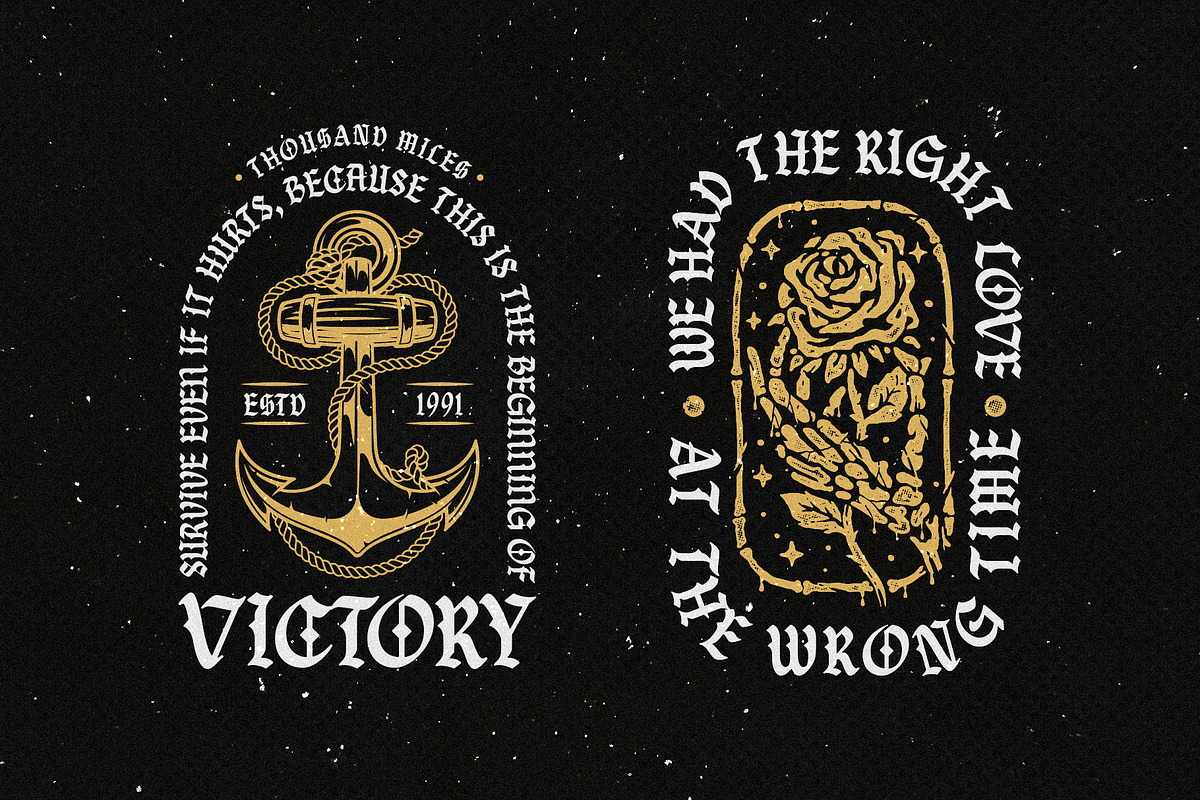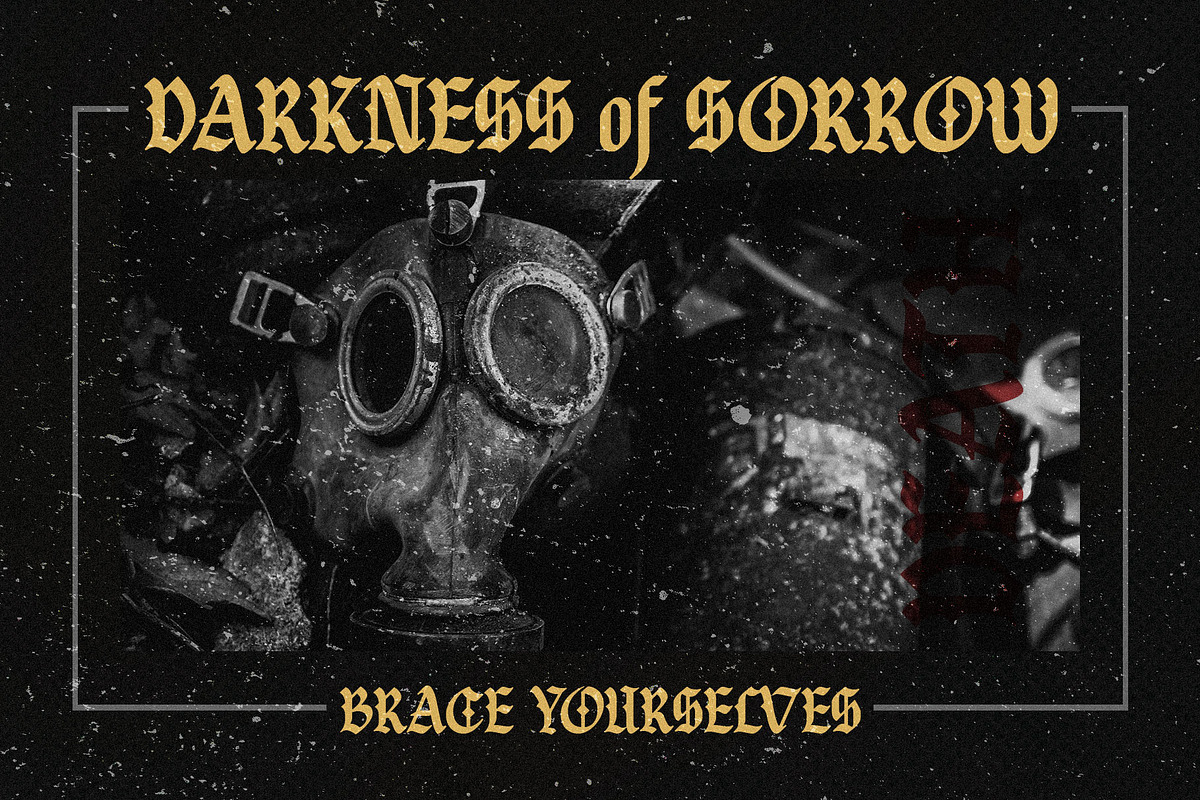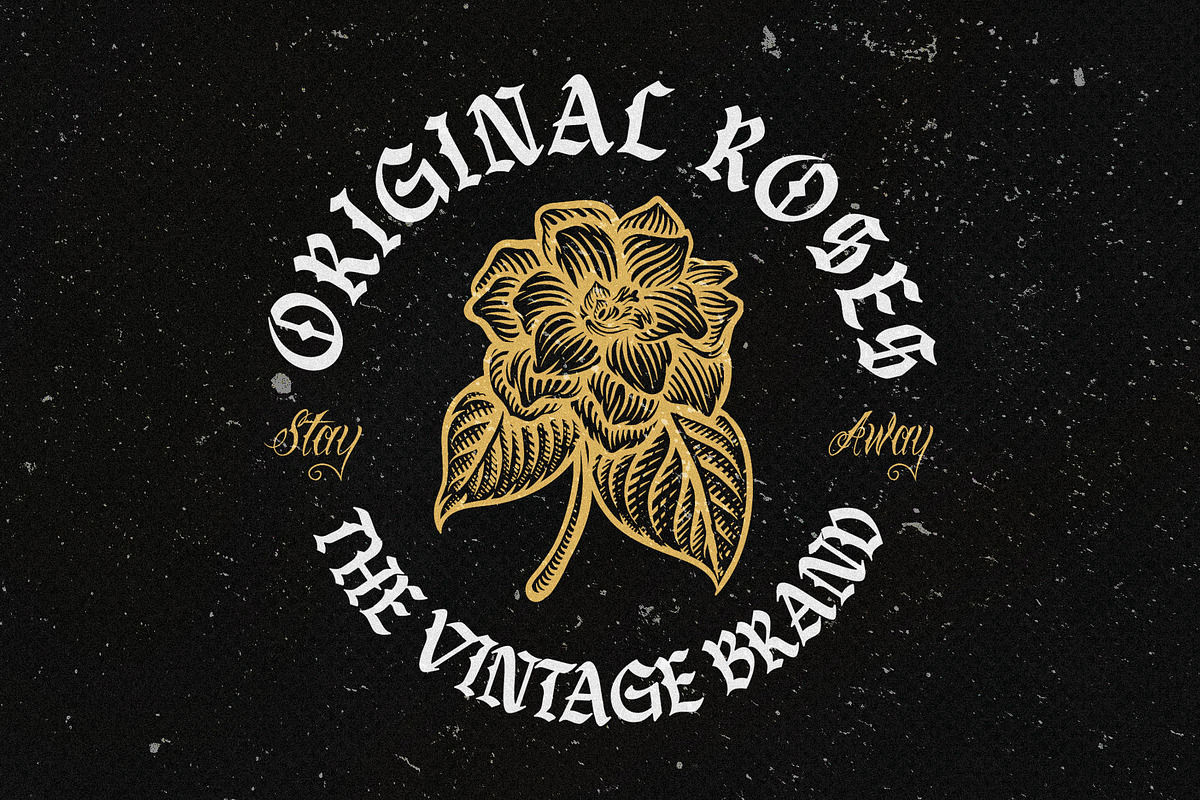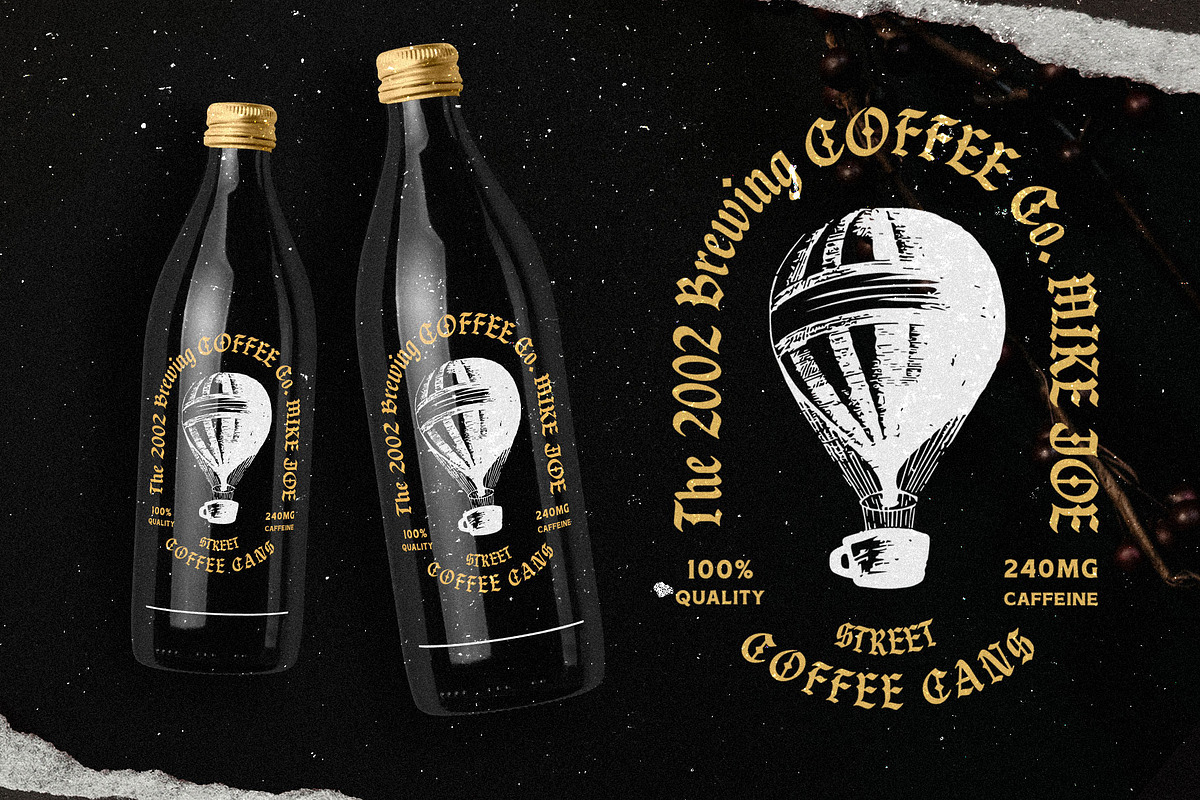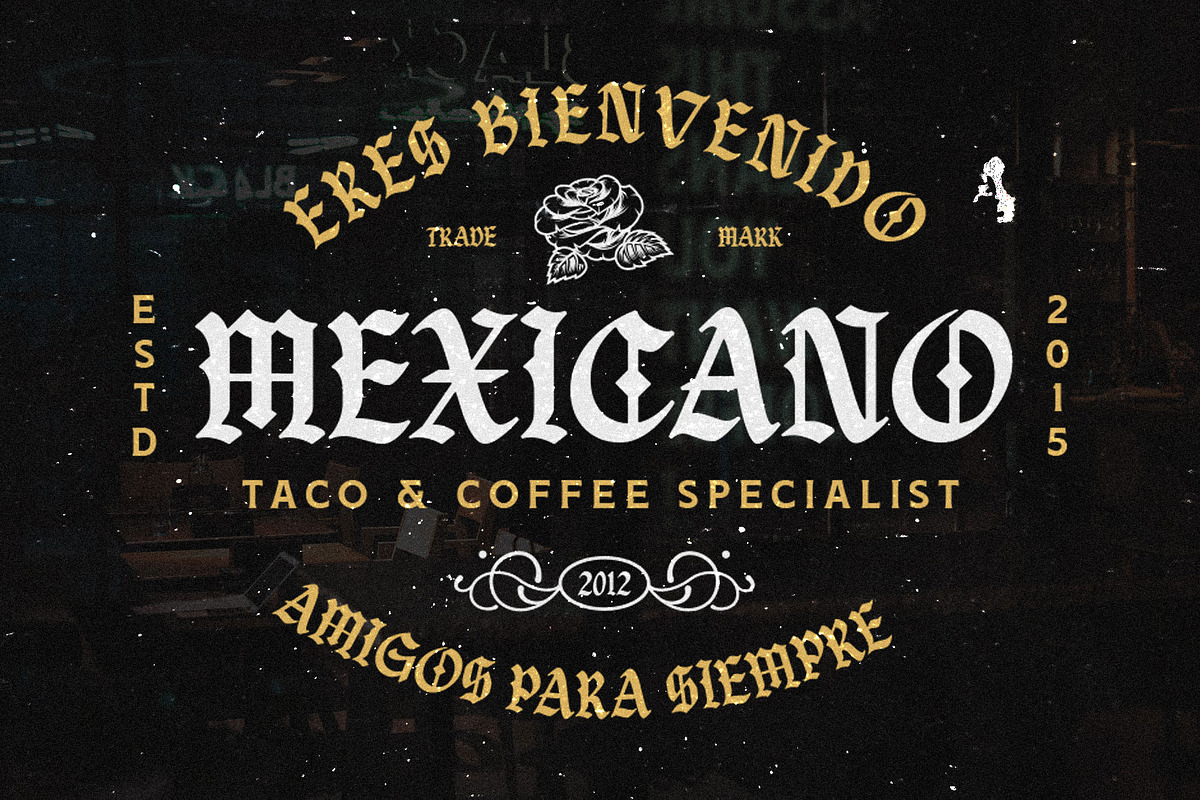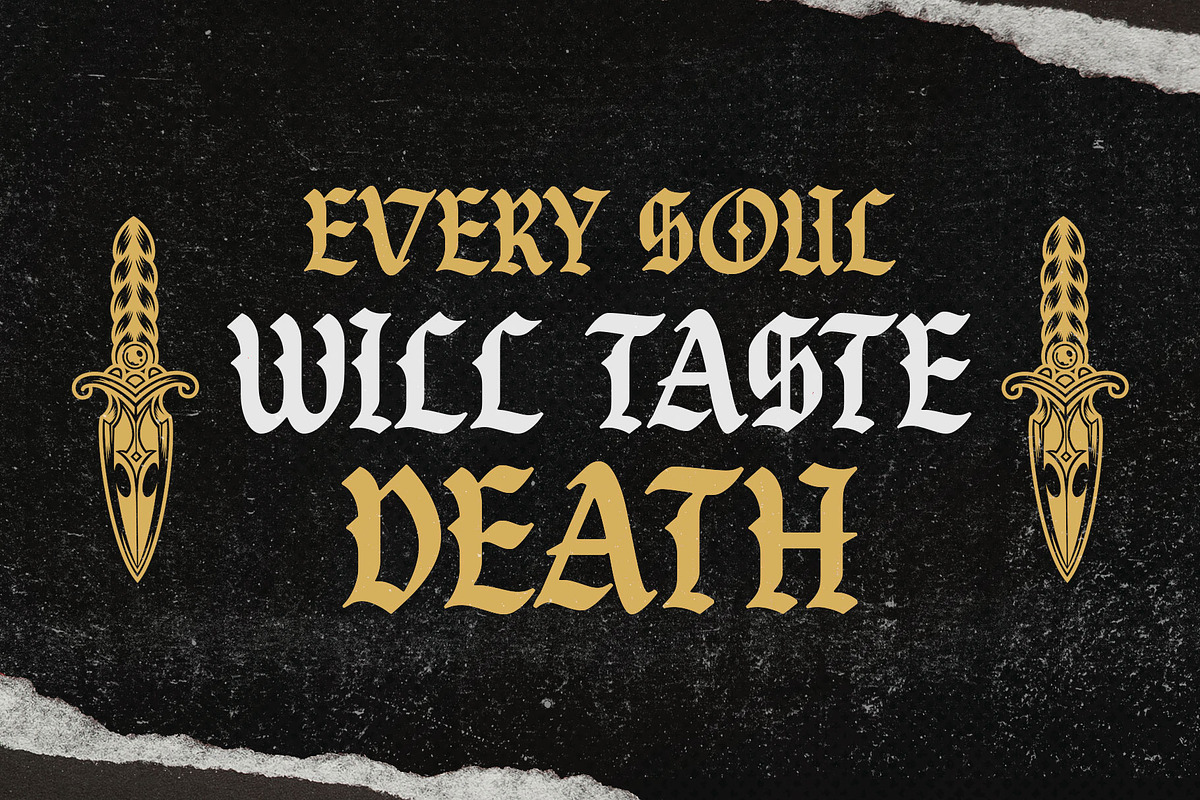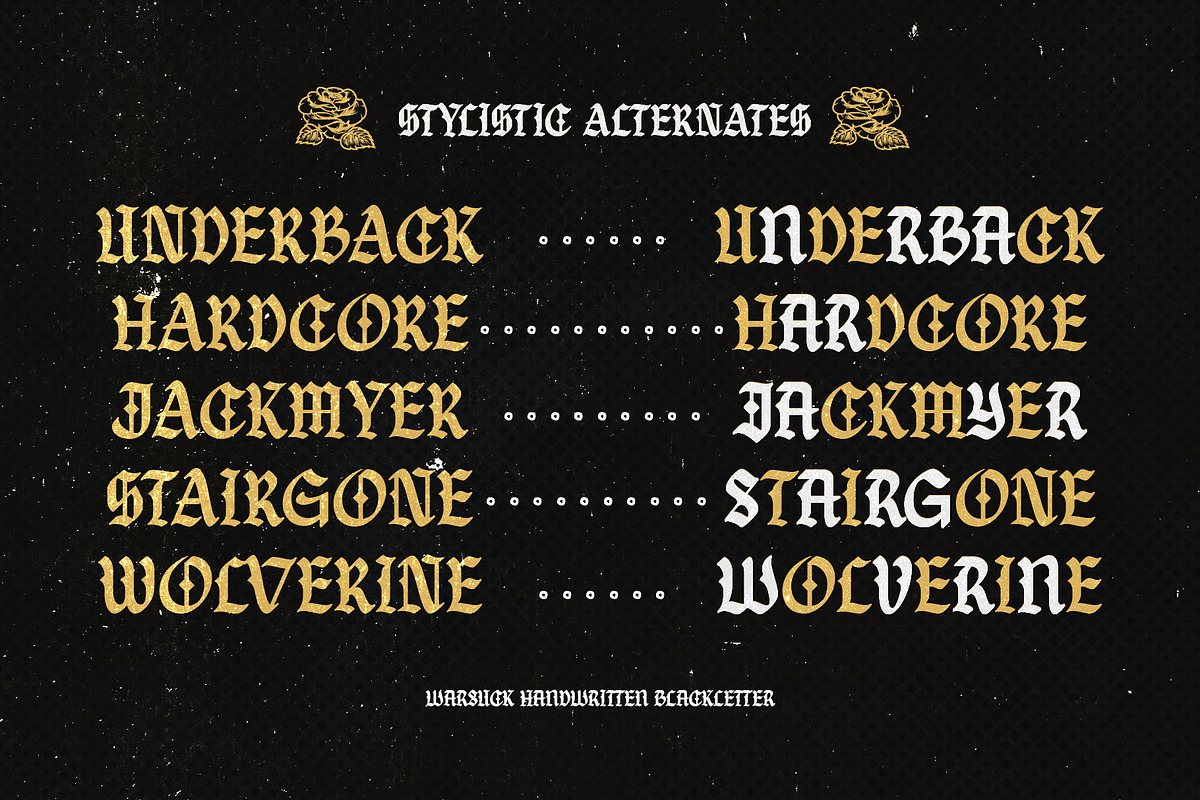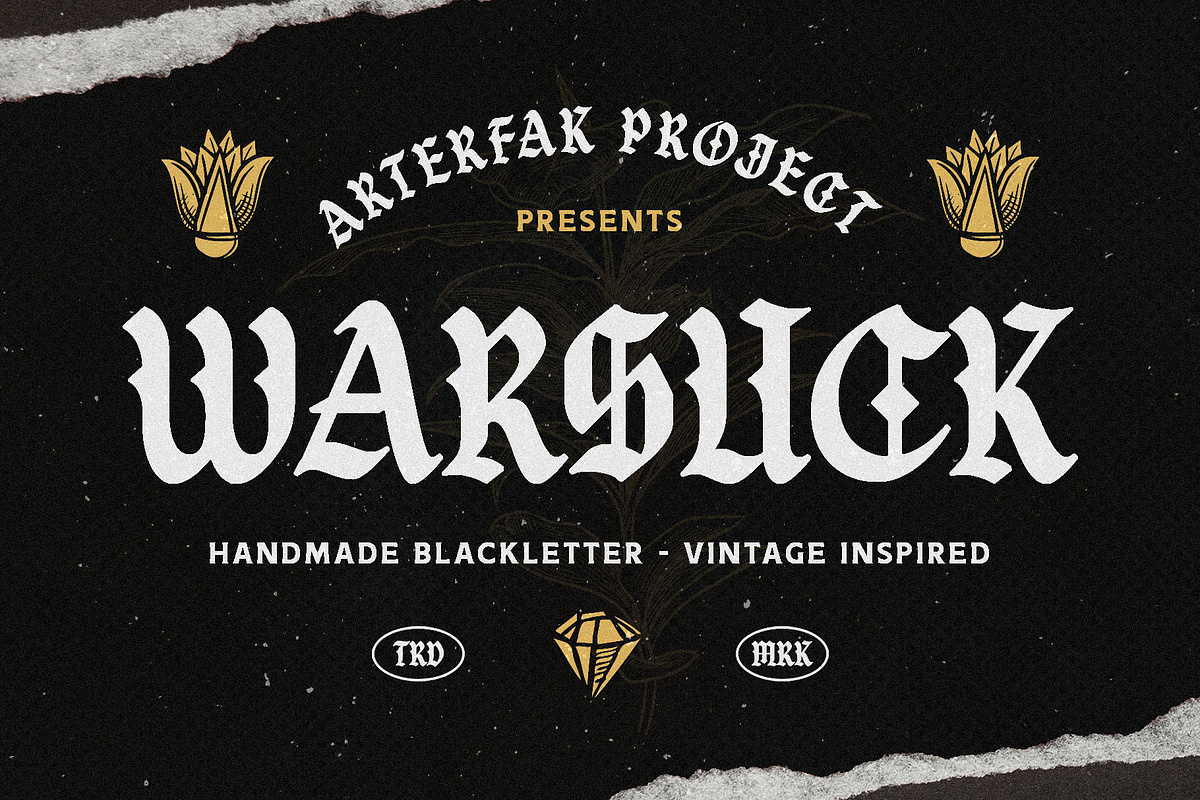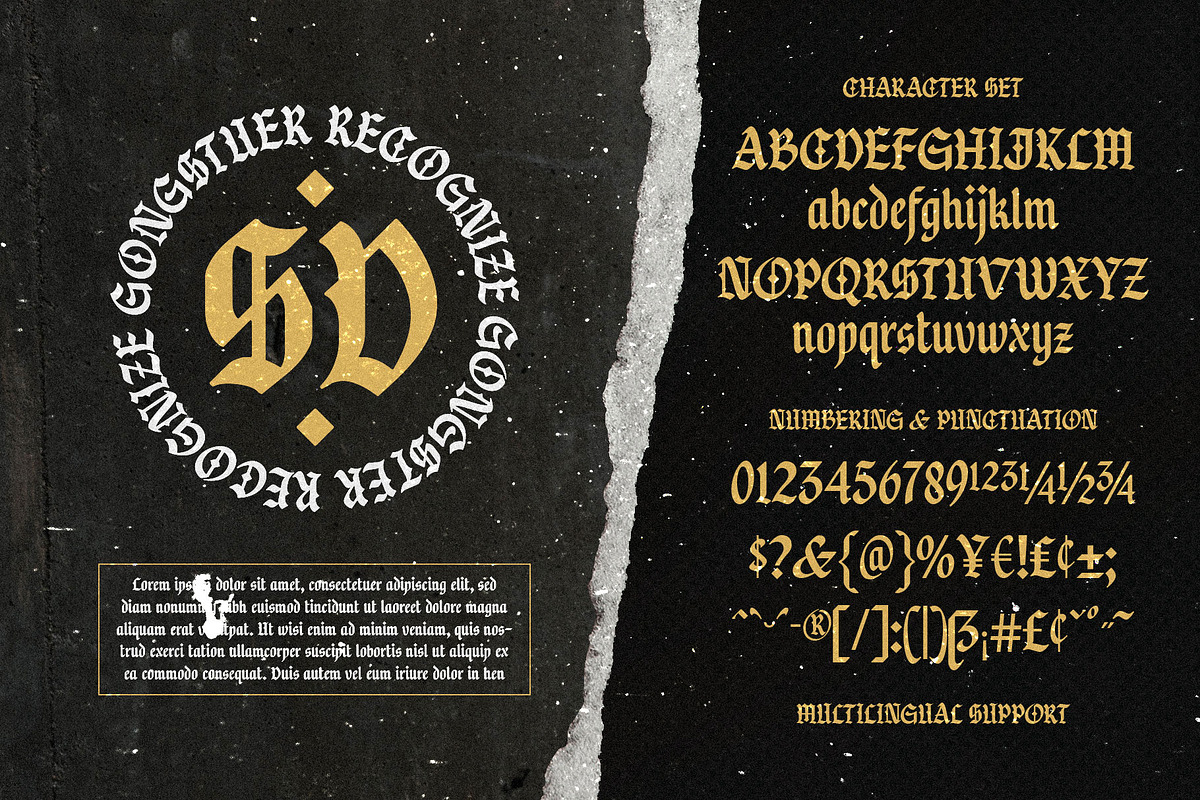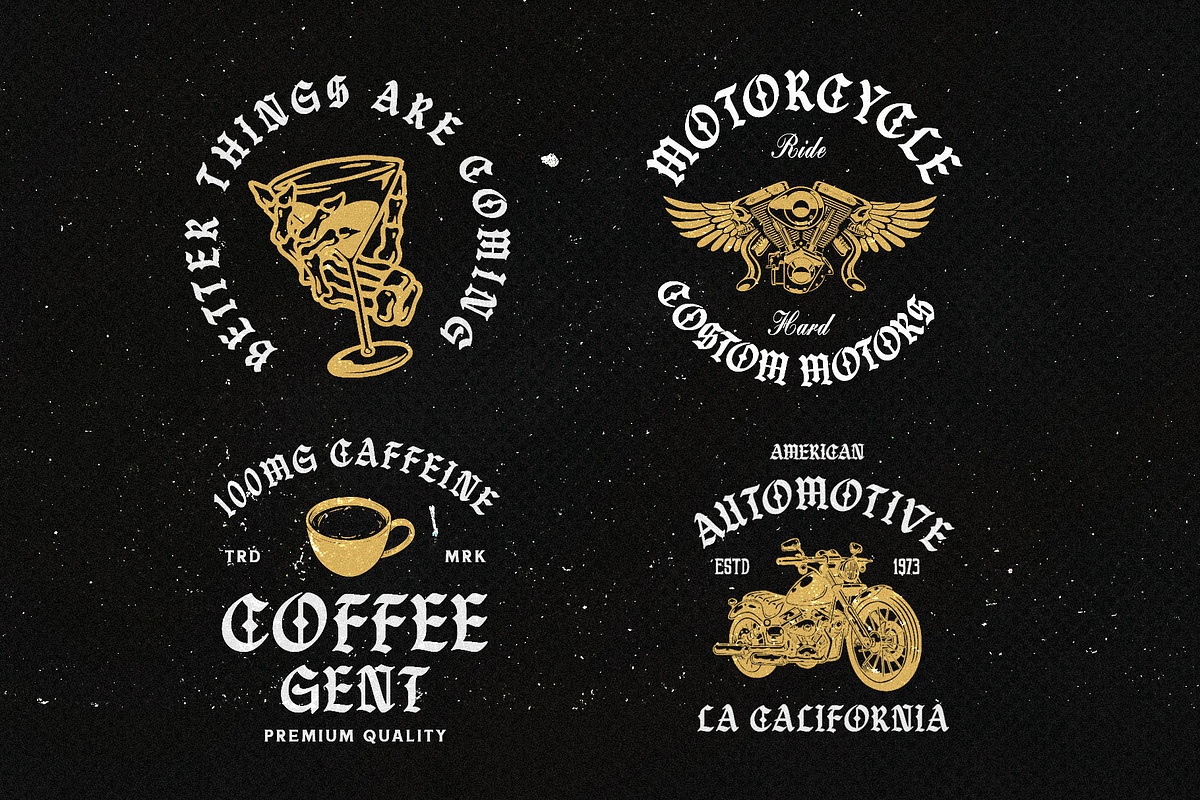
Warsuck - Hand Drawn Blackletter
Introducing Warsuck, a hand-drawn font inspired by the underground culture, and a blackletter font. Warsuck emphasizes the usage of uppercase letters as the main display but still includes lowercase letters. Strong, vintage, and aesthetic blackletter with extra alternates characters.
This font is combining several styles in blackletter fonts such as Bastarda, Rotunda, and Old English to produce an experimental font. Great for displays, especially dark and vintage themes. You can use this font on t-shirts, tote bags, stickers, labels, logos, badges, banners, quotes, and short text.